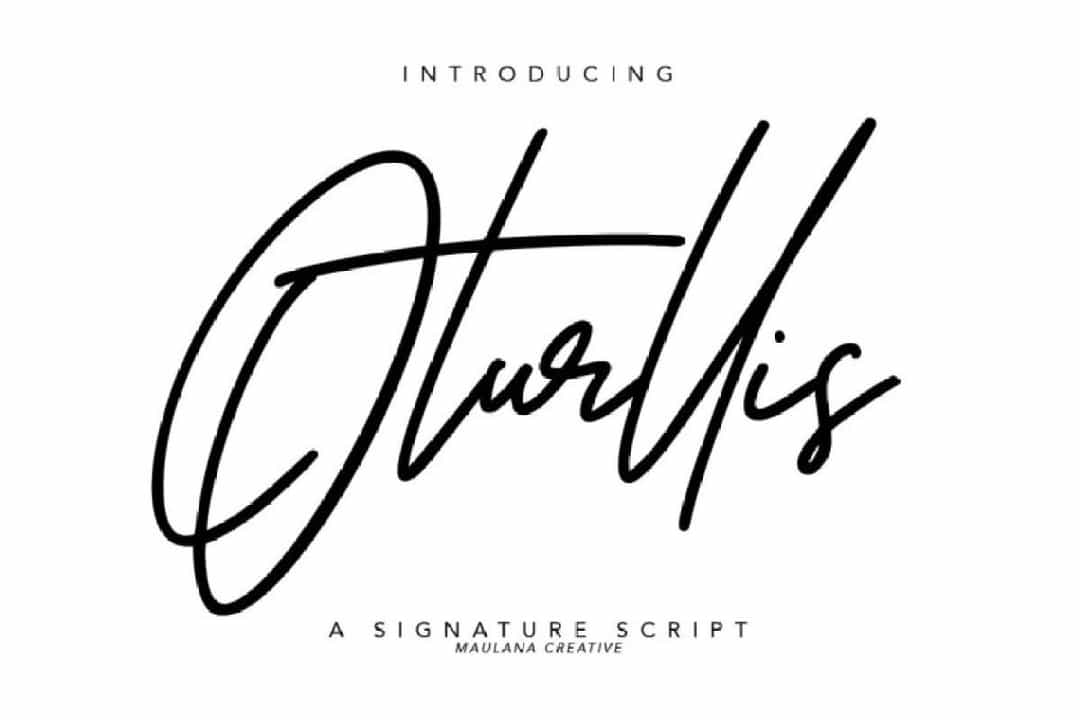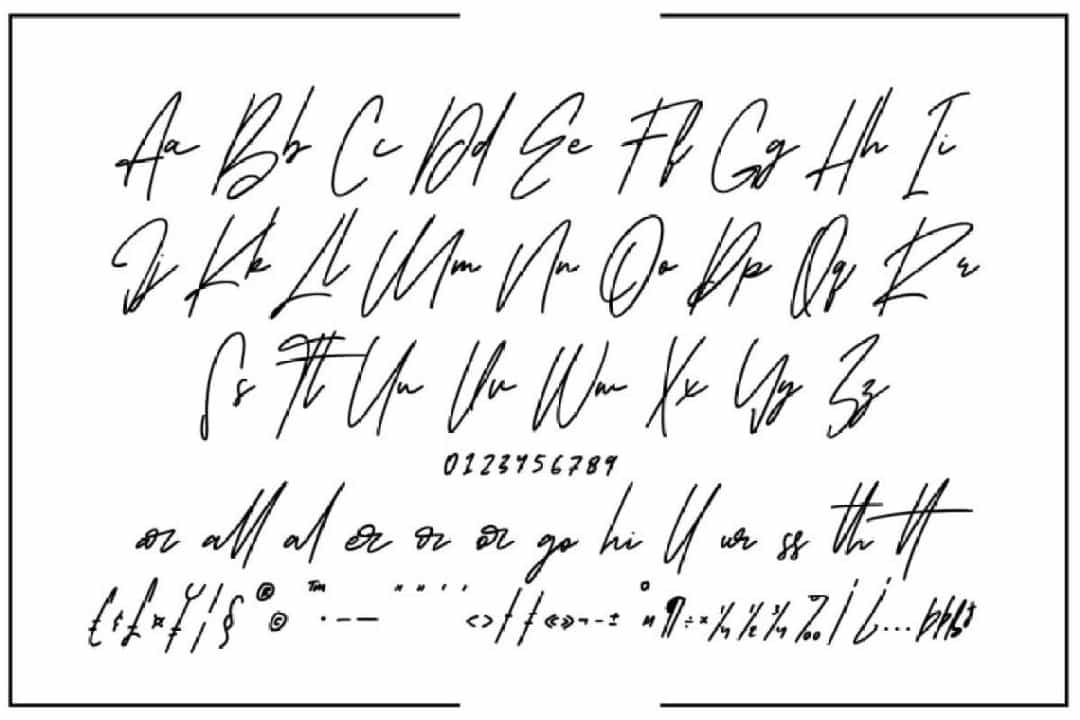
This will help in giving the designs a more hand crafted look and feel. The “Oturllis Font” can be used for logos, letterhead, signatures or quotations that are related to typography; covers of magazines or books; headlines of websites; apparel, branding, packaging, and many other applications – with other stylish samples bundled within this font.